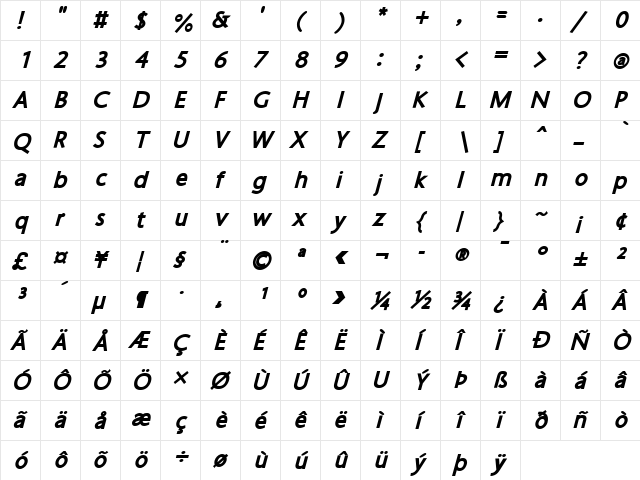
OskiEast Bold Italic Font Preview
Design Context for OskiEast Typeface
OskiEast takes a measured approach to typography — its balanced proportions and neutral character make it a reliable workhorse for both digital and print work. The dynamic lean of this cut emphasises speed and emphasis in any layout. Its bold stroke weight gives it real presence on the page.
Pro Tip: Try OskiEast for annotation and caption copy alongside an upright companion — the contrast in angle creates a dynamic but ordered typographic system.